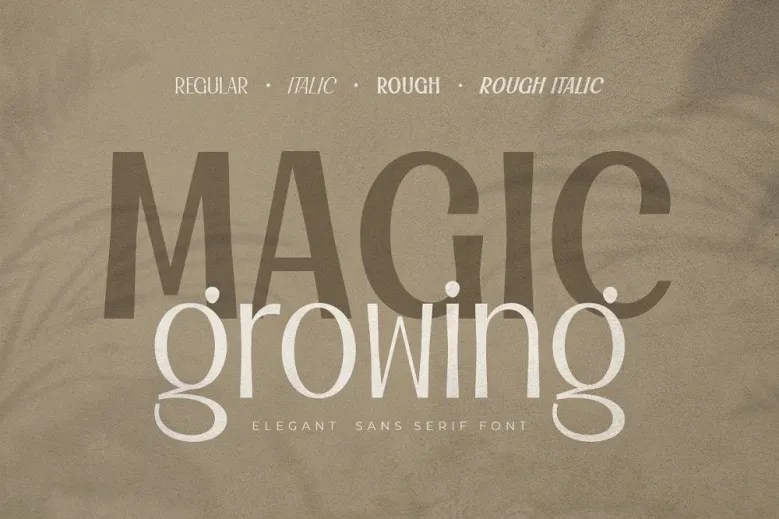
Magic Growing Font
Magic Growing is a refined sans-serif font with a touch of elegance and style, crafted by Sensatype Studio with special characters designed by Morisco Studio. This font is an excellent choice for designers or product owners looking to enhance the visual appeal of their projects. With its clean lines and sophisticated design, Magic Growing brings a modern, stylish edge to any creative endeavor.
The font comes with various styles, offering you the flexibility to create diverse and unique designs that align perfectly with your creative vision. Whether you’re working on branding, product packaging, or digital content, Magic Growing provides the versatility needed to make your work stand out.